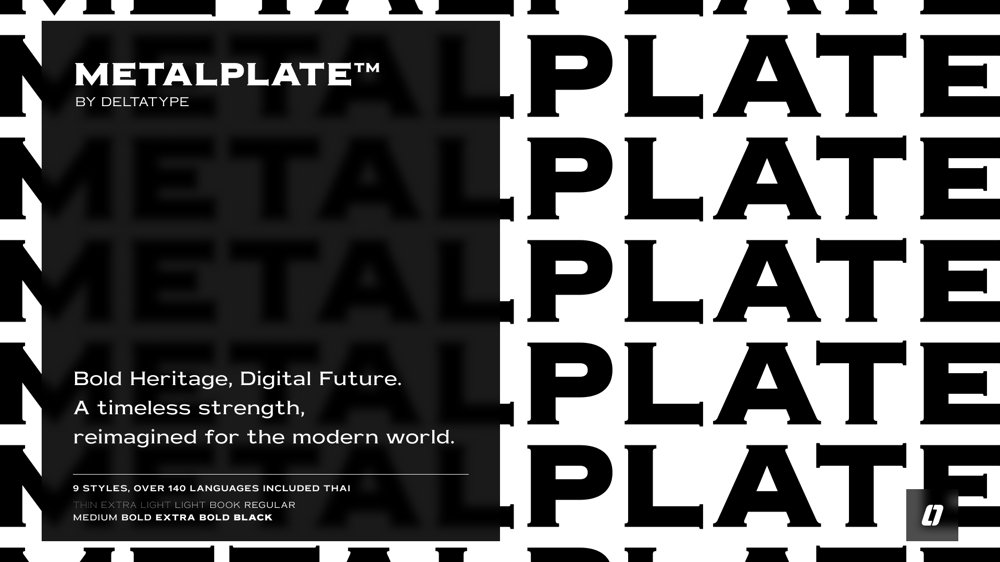
Metalplate Font Family was designed by Kwanchai Akkaratammagul, Phatcharaphat Chatthawatthanathon and published by Deltatype. Metalplate contains 9 styles and family package options. Bold Heritage, Digital Future.A timeless strength reimagined for the modern world.Metalplate™ is inspired by an iconic typeface, now refined for the digital age with support for over 140 languages, including Vietnamese, Latin-based scripts, and Thai. Crafted with precision in every curve and angle, Metalplate™ balances strength and elegance, making it a perfect choice for branding, editorial, and display applications.Metalplate™ comes in 9 styles, ranging from Thin (100) to Black (900), following the standard CSS font-weight scale. This allows for seamless adaptation across various design needs, ensuring clarity, impact, and aesthetic consistency across different media and platforms.Regarding usability, Metalplate™ is ideal for headlines and short texts, delivering maximum impact in display settings. Additionally, it can be used decoratively or for typeplay, leveraging its thinnest and boldest weights to create striking contrasts and dynamic compositions. This versatility enhances graphic elements and communication, making the typography stand out with power and distinction.